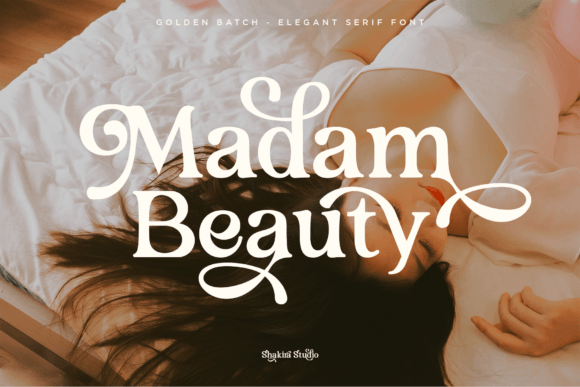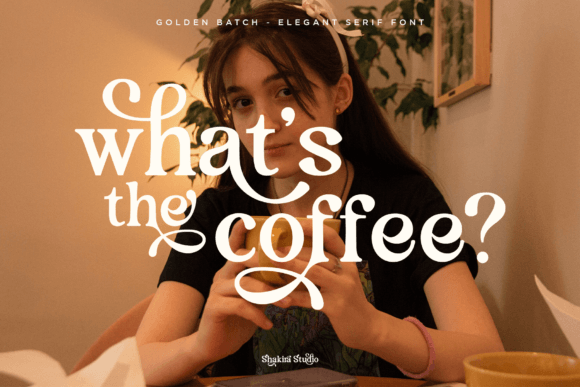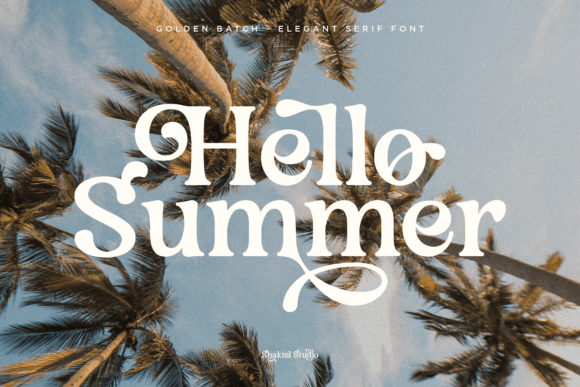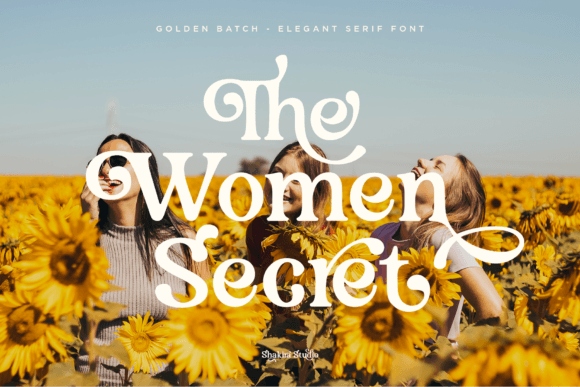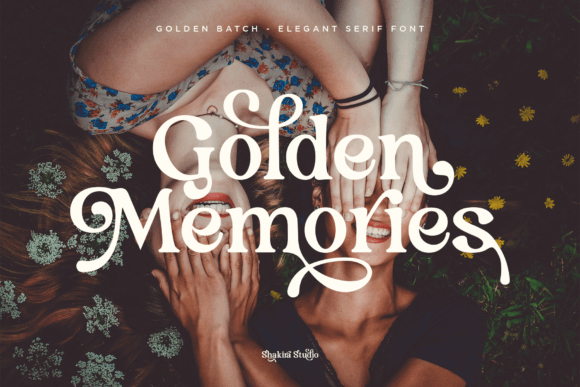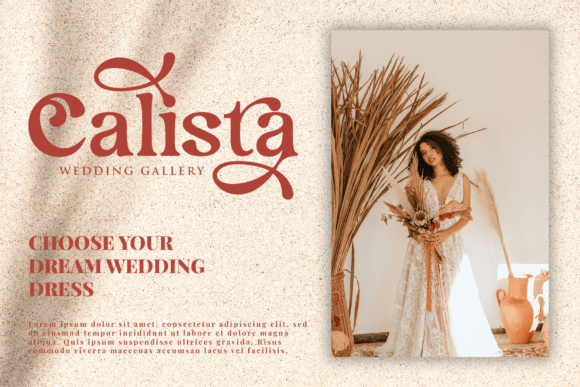
The Elegance of Golden Batch Font: A Designer’s Delight
I still remember the time I was working on a wedding invitation project, and my client asked for a font that exuded elegance and sophistication. I scoured the internet, tried out countless fonts, but nothing seemed to fit the bill. That was until I stumbled upon the Golden Batch Font. It was love at first sight! ✨ The contrasting lines, curved terminals, and vintage flair won me over, and I knew I had found the perfect font for my project.
- ✨ Elegant serif design that adds a touch of sophistication to any project
- ✅ Contrasting lines and curved terminals for a sleek, elegant look
- 🎨 Perfect for logos, holiday cards, wedding invitations, quotes, advertisements, and more
While I absolutely adore the Golden Batch Font, there are a few minor quirks to be aware of: 🤔
- ⚠️ Some users may find the font a bit too ornate for certain projects
- ⚠️ May require some experimentation to get the perfect combination of glyphs and ligatures
The Story Behind Golden Batch Font
The Golden Batch Font was designed with elegance and sophistication in mind. The designer wanted to create a font that would evoke a sense of luxury and refinement, perfect for high-end projects and designs. The result is a beautiful, elegant serif font with a vintage flair that’s sure to impress.
Q: What is the Golden Batch Font?
A: The Golden Batch Font is an elegant serif font designed for creating bold, gorgeous headlines and elegant designs with a vintage flair.